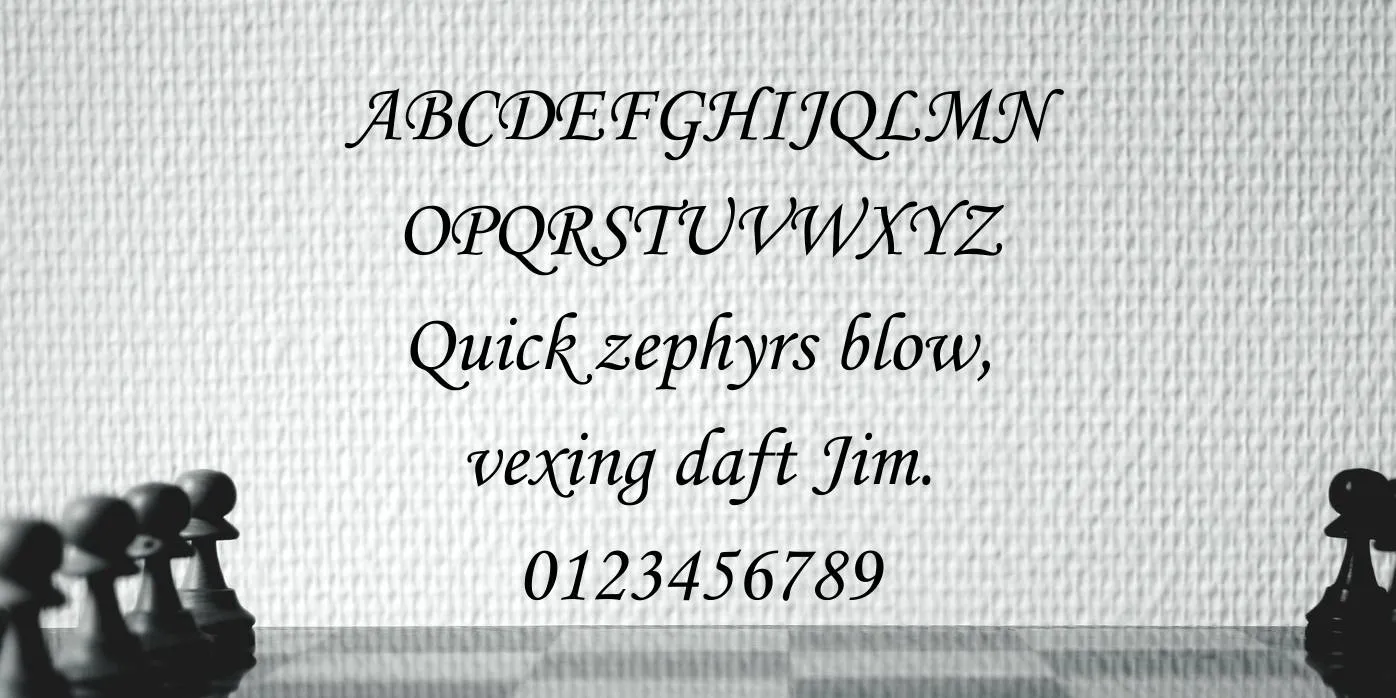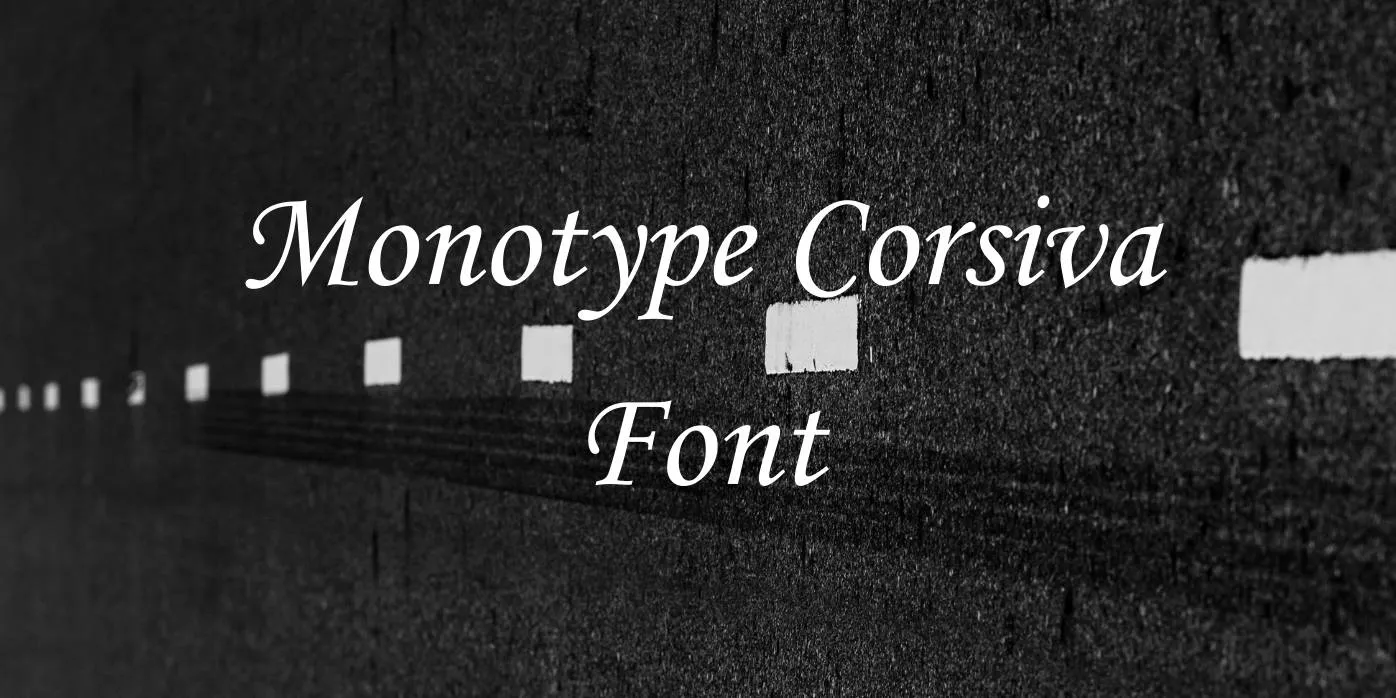
Monotype Corsiva Font
Here we are discussing a very famous and outstanding font named Monotype Corsiva Font. It belongs to the Script typeface. This font family was designed by an elegant designer Patricia Saunders. This classy typeface is an Italic Font and it is developed by using different Italian styles.
This font is the most suitable and best for all short paragraphs. This stunning font family is frequently used for advertisement-type works. This unique and awesome has comes various types of styles and weights. All fonts that are similar to this font family are developed by Monotype company.
For many advanced designs, you can use Helvetica Font which is closest to this font. Different styles of this font family are Corsiva Italic, Medium, and Bold. It is used everywhere in the world.